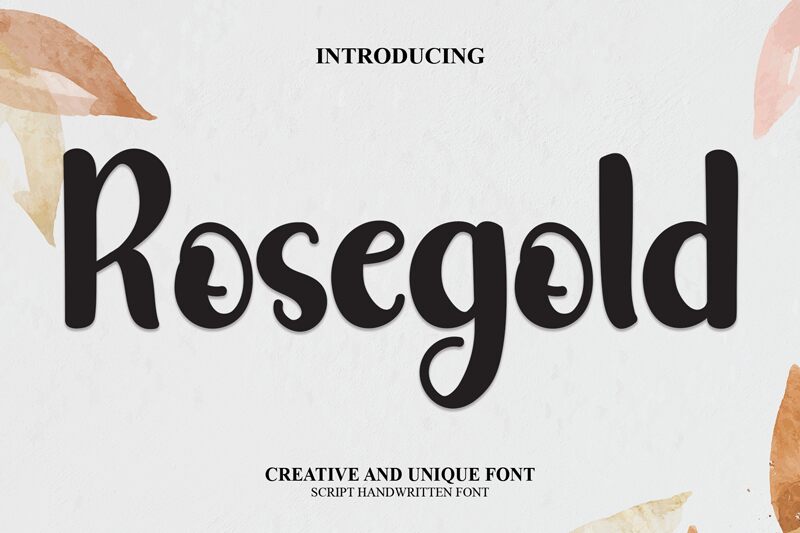
Rosegold
Rosegold, designed by the talented Lontong Lodeh, is a captivating and versatile smooth brush font. With its semi-bold weight, this font exudes confidence and elegance. Its fluid strokes and graceful curves make it suitable for a wide range of creative projects. Whether you're designing eye-catching logos, sophisticated branding materials, or stunning wedding invitations, Rosegold will effortlessly elevate your designs to new heights. Embrace the beauty of this enchanting typeface and let it bring a touch of glamour to your next project.
the latest style letters are perfect for wall displays, wedding invitations, social media post logos, advertisements, product packaging, product designs, labels, photography, watermarks, invitations, stationery, and any project that requires taste handwriting.